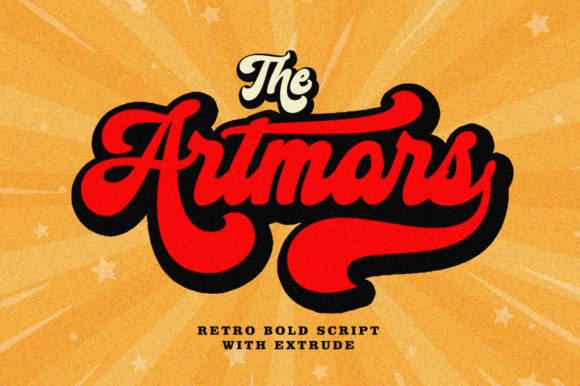
The Artmars Font
Journey through time with The Artmars Font, a captivating script font brimming with nostalgic charm and vintage allure. Crafted by the skilled hands of rastype1010, this font family embodies the spirit of bygone eras, lending an air of authenticity to your creative projects.
Immerse yourself in the whimsical world of The Artmars Font, where retro aesthetics dance gracefully with contemporary flair. Its playful curves and distinctive letterforms evoke a sense of nostalgia, transporting you to a time of classic elegance and timeless beauty.
Unleash your creativity and let The Artmars Font elevate your designs to new heights. Whether you're crafting logos, posters, invitations, or social media graphics, this versatile font family seamlessly adapts to your artistic vision. Experience the joy of creating designs that exude a timeless appeal and capture the hearts of your audience.
With The Artmars Font, you have the power to transform ordinary words into captivating works of art. Its intricate details and flowing lines add a touch of magic to any project, leaving a lasting impression on those who encounter it. Embrace the beauty of yesteryear and incorporate The Artmars Font into your design arsenal today!